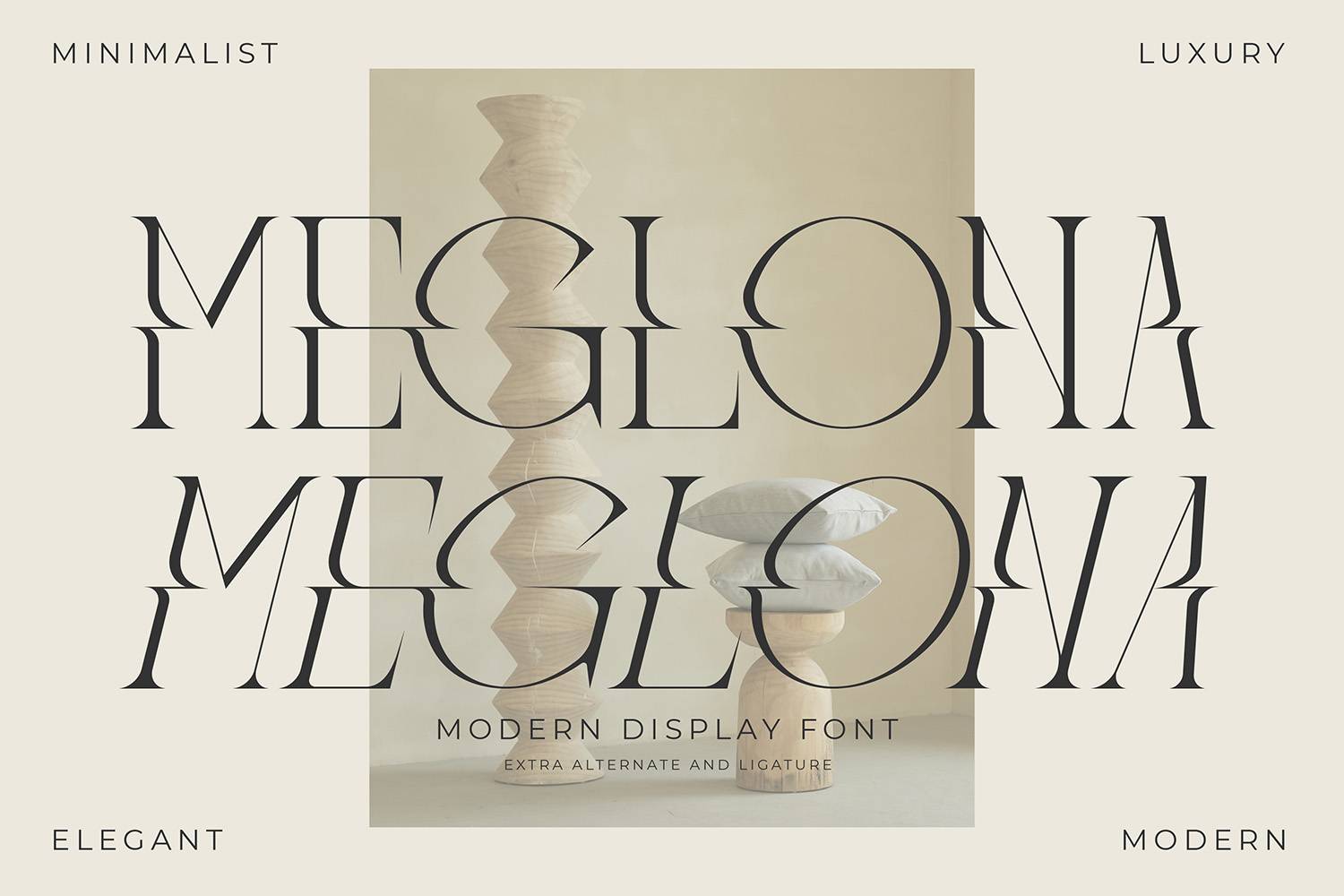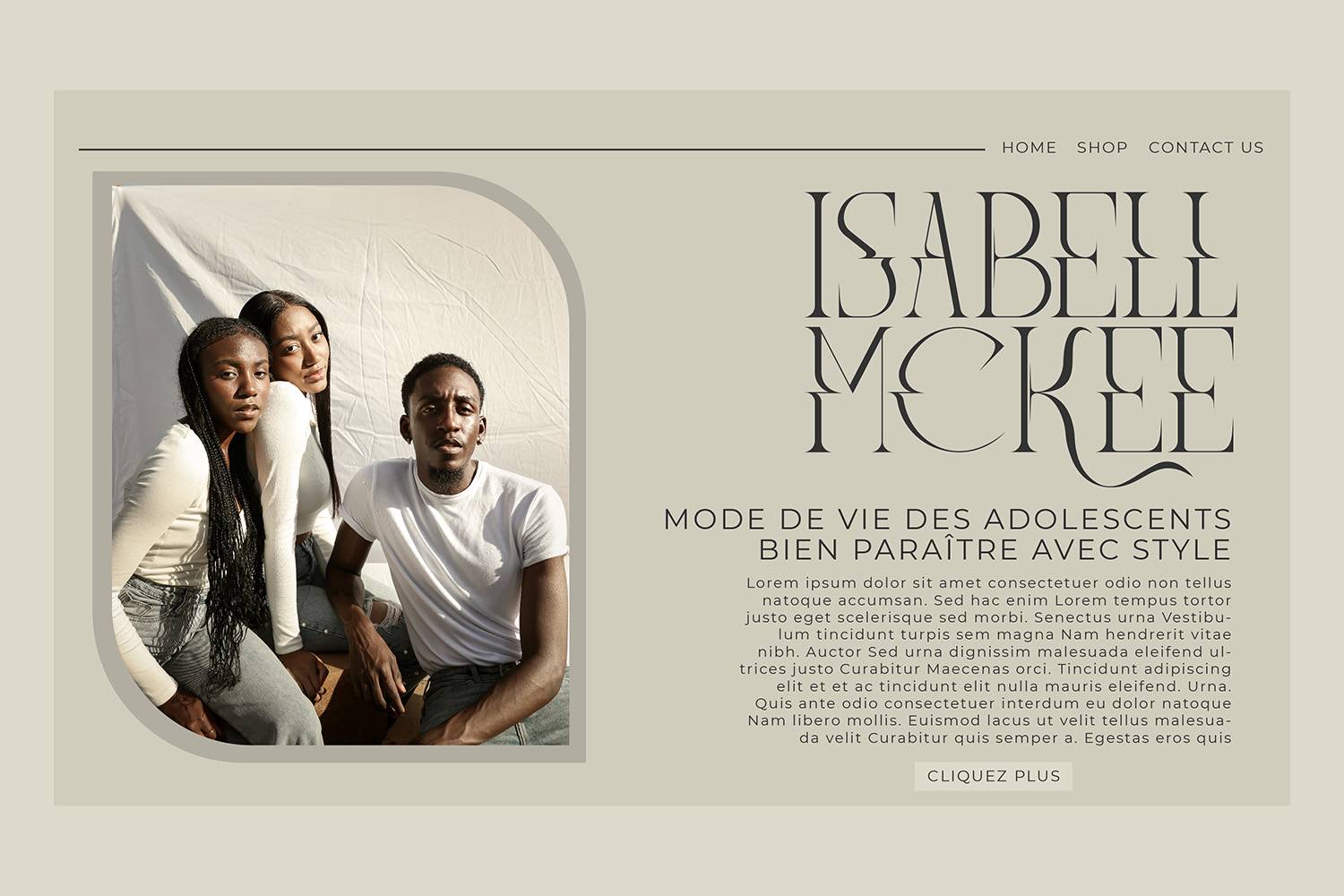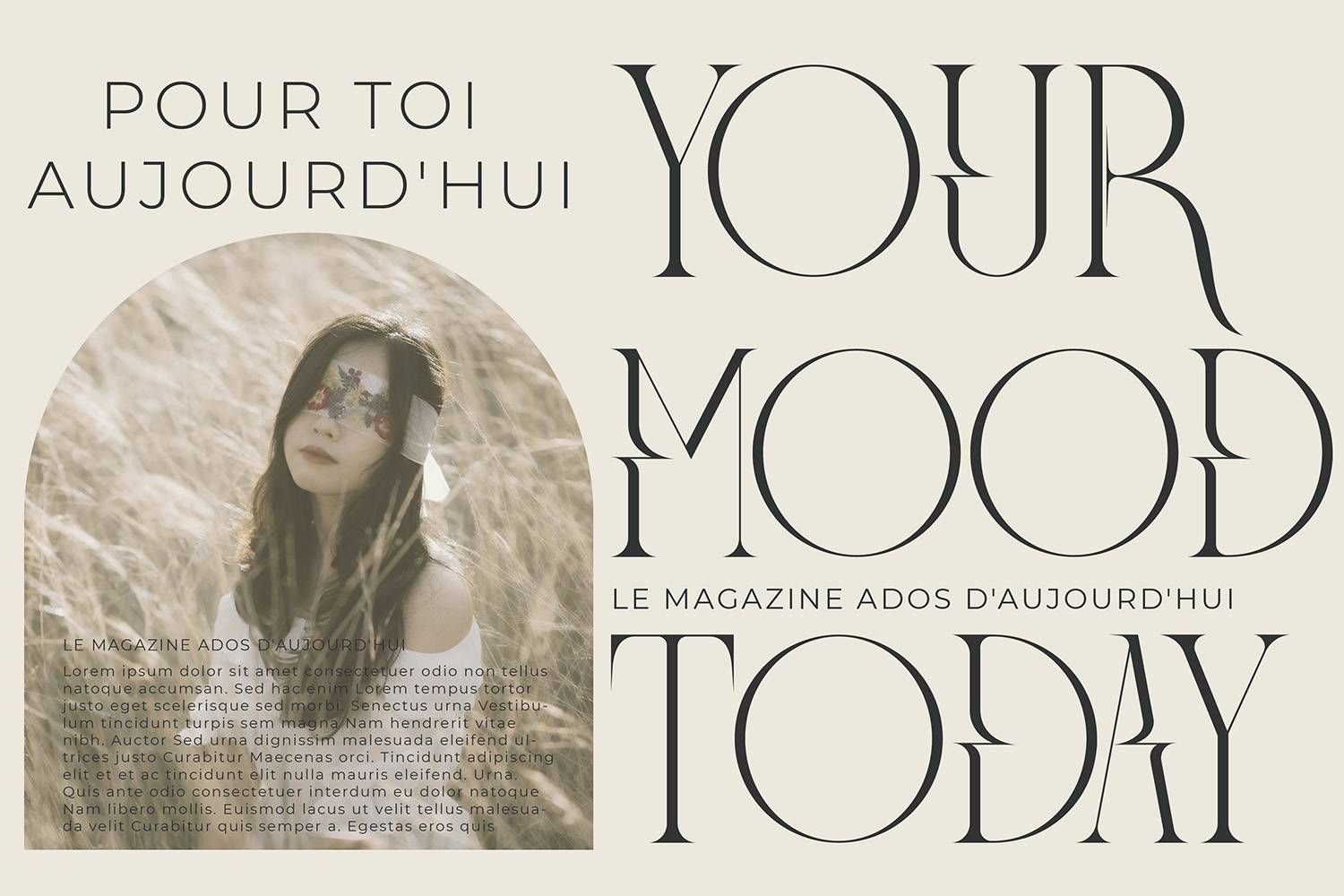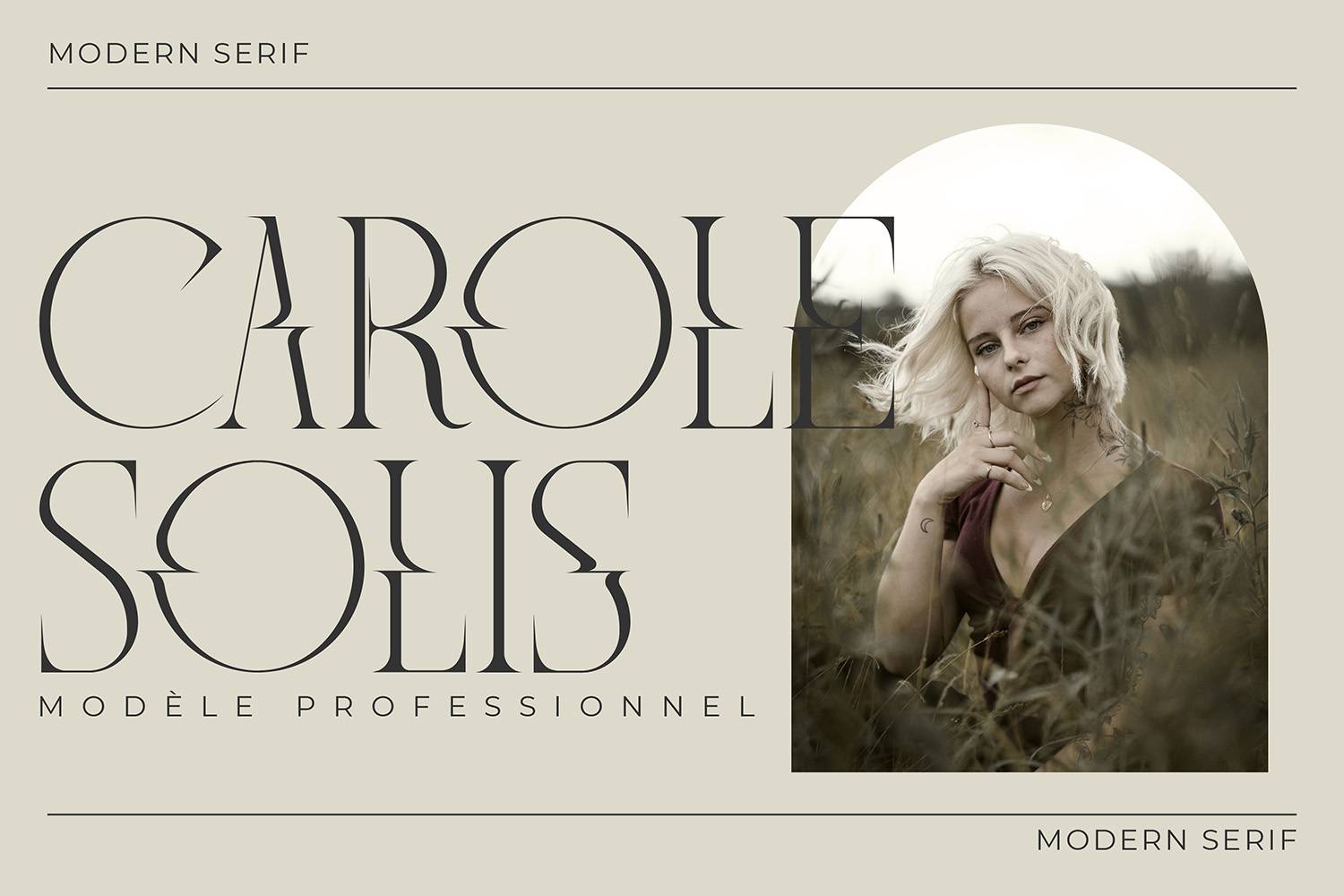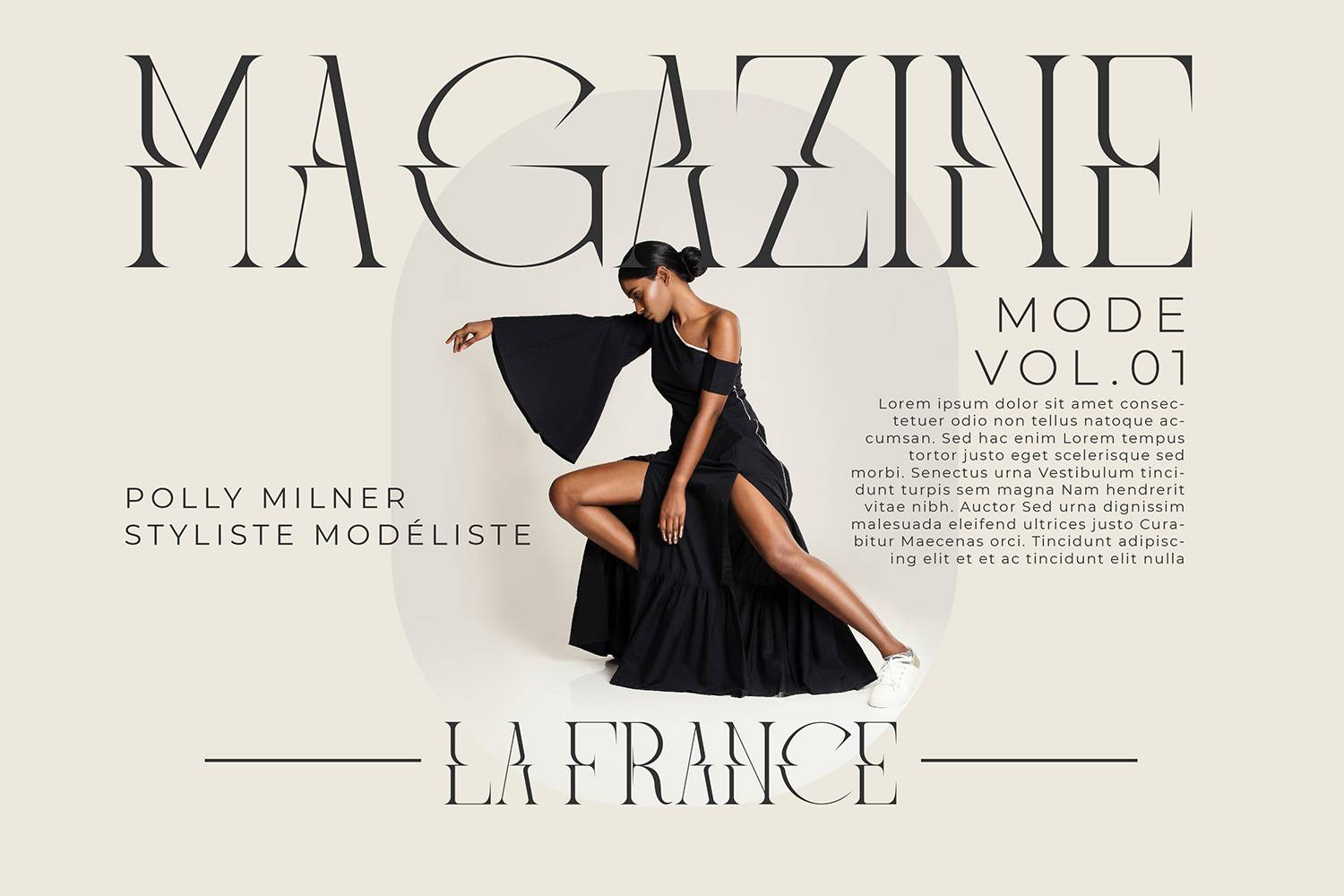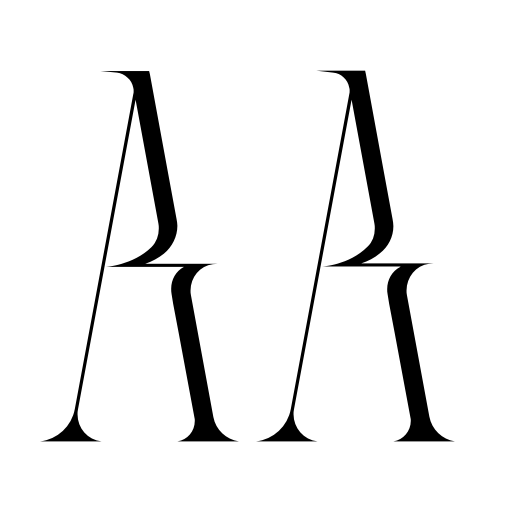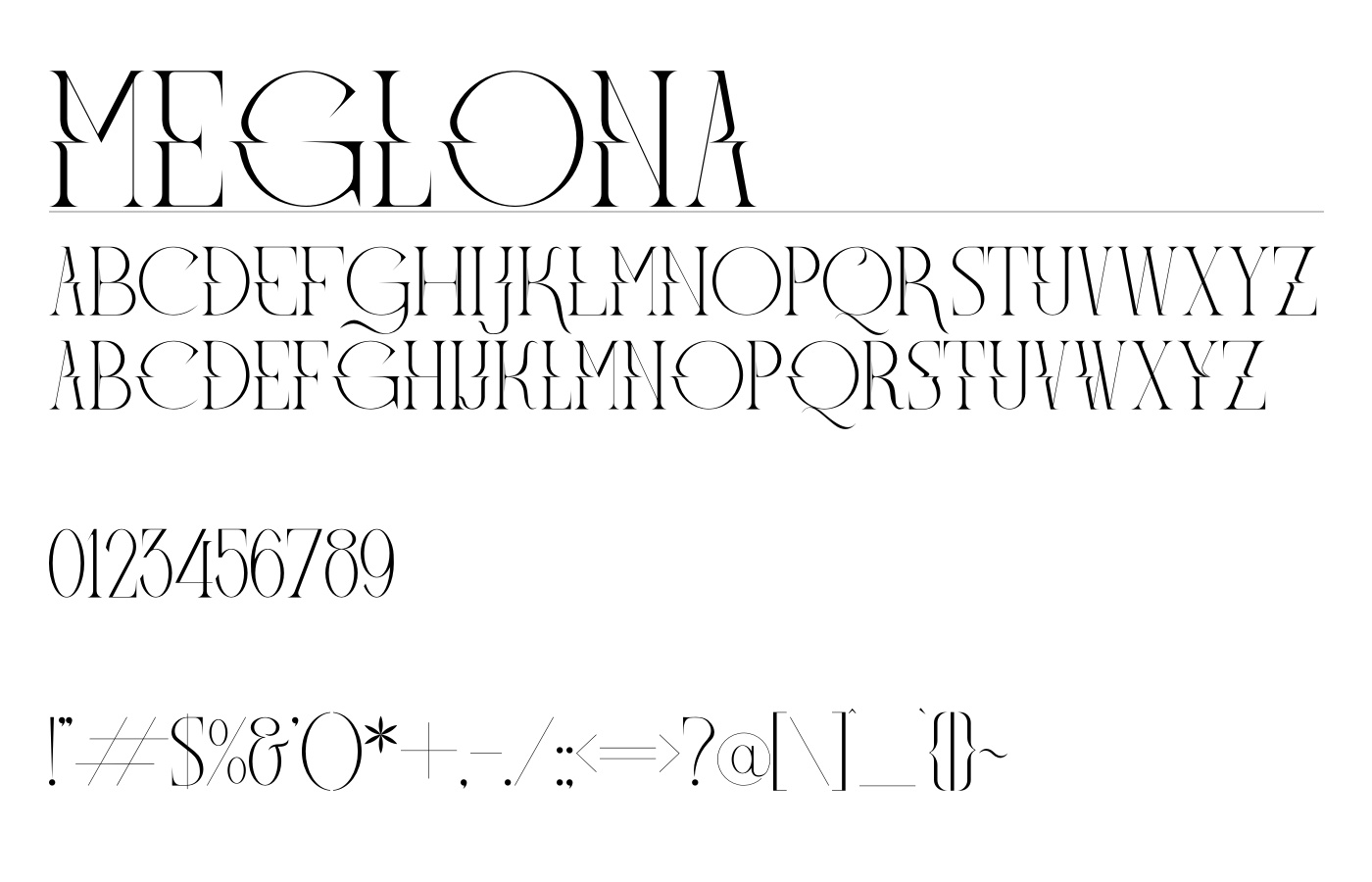
Meglona is an elegant serif font characterized by its extremely high contrast between thick and thin strokes, tall, narrow letterforms, and sharp, delicate serifs with subtle curves. Its refined, sophisticated style evokes a modern luxury feel, making it perfect for upscale branding, fashion magazines, and elegant headlines where a dramatic, stylish impact is desired. This font works best in large sizes where its fine details can shine and create a memorable, classy impression.
Meglona Font
About Meglona Font